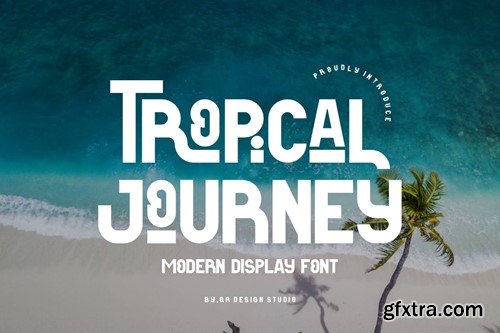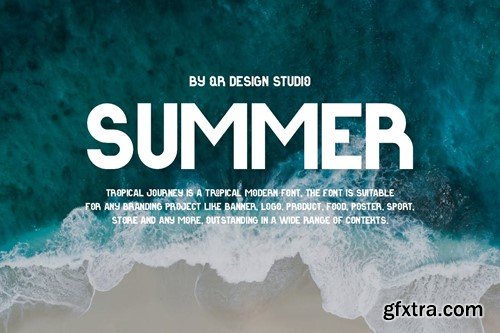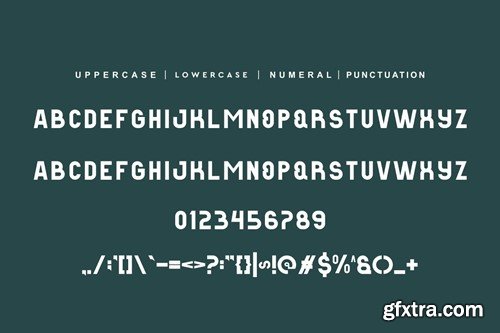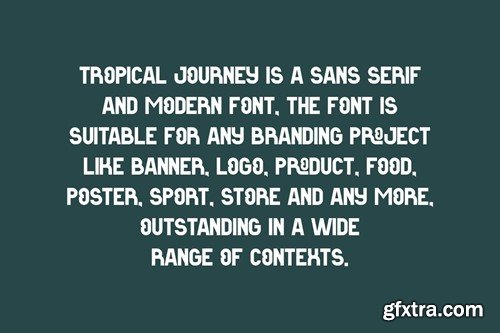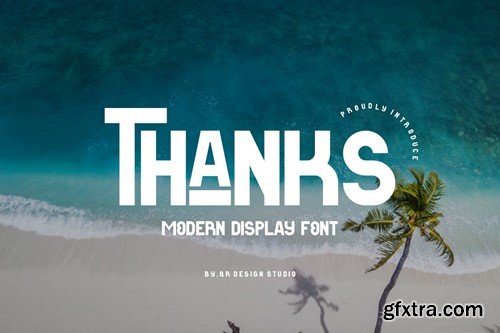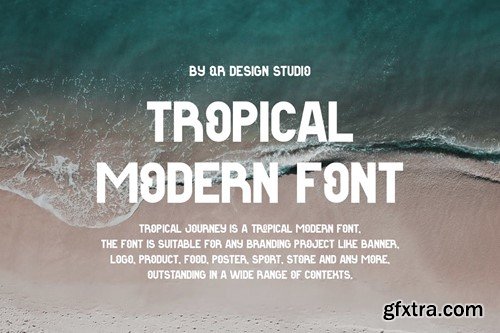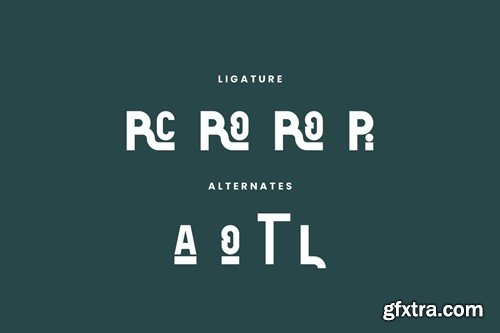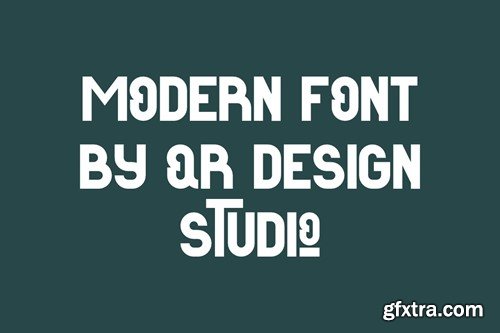
热带之旅 - 现代显示字体 GJH88T2
Tropical Journey - Modern Display Font GJH88T2
Tropical Journey - Modern Display Font
Tropical Journey Font is a modern and authentic display font. The font is suitable for any branding project like summer, poster, logo, sport, and many more. Outstanding in a wide range of contexts.